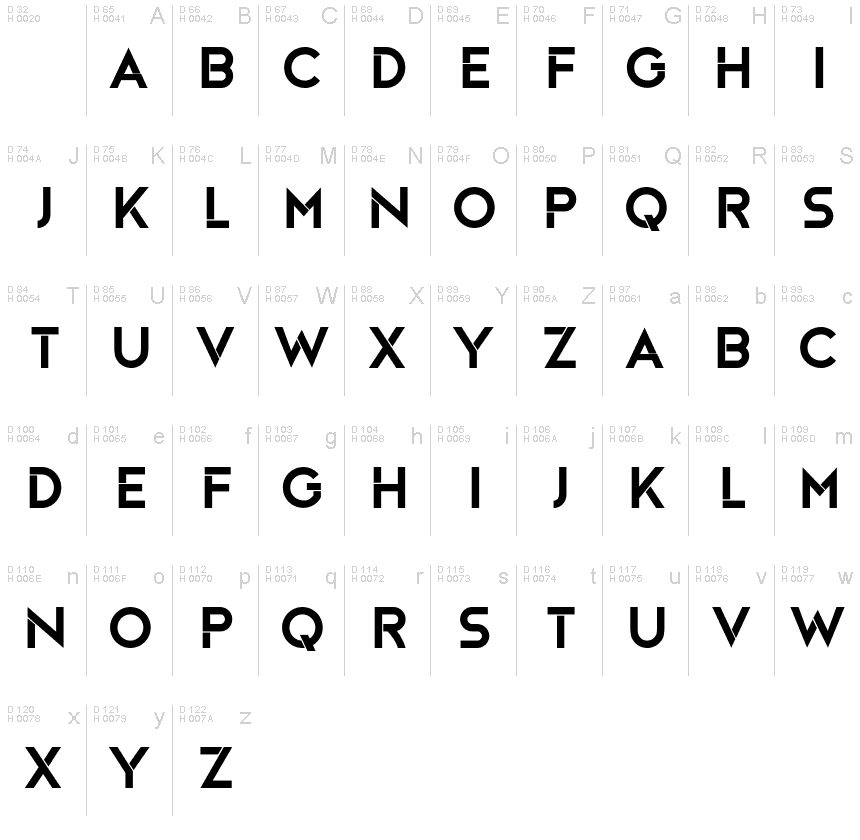
Devlin Regular
Devlin, designed by Vladimir Nikolic, is a versatile sans serif stencil font. With its modern and minimalistic style, it gives a unique touch to any design project. Its sharp edges and clean lines make it perfect for logos, banners and posters. It's also ideal for website designs and branding material that need a bold look. Devlin is perfect for projects that require an eye-catching aesthetic with a contemporary flair.